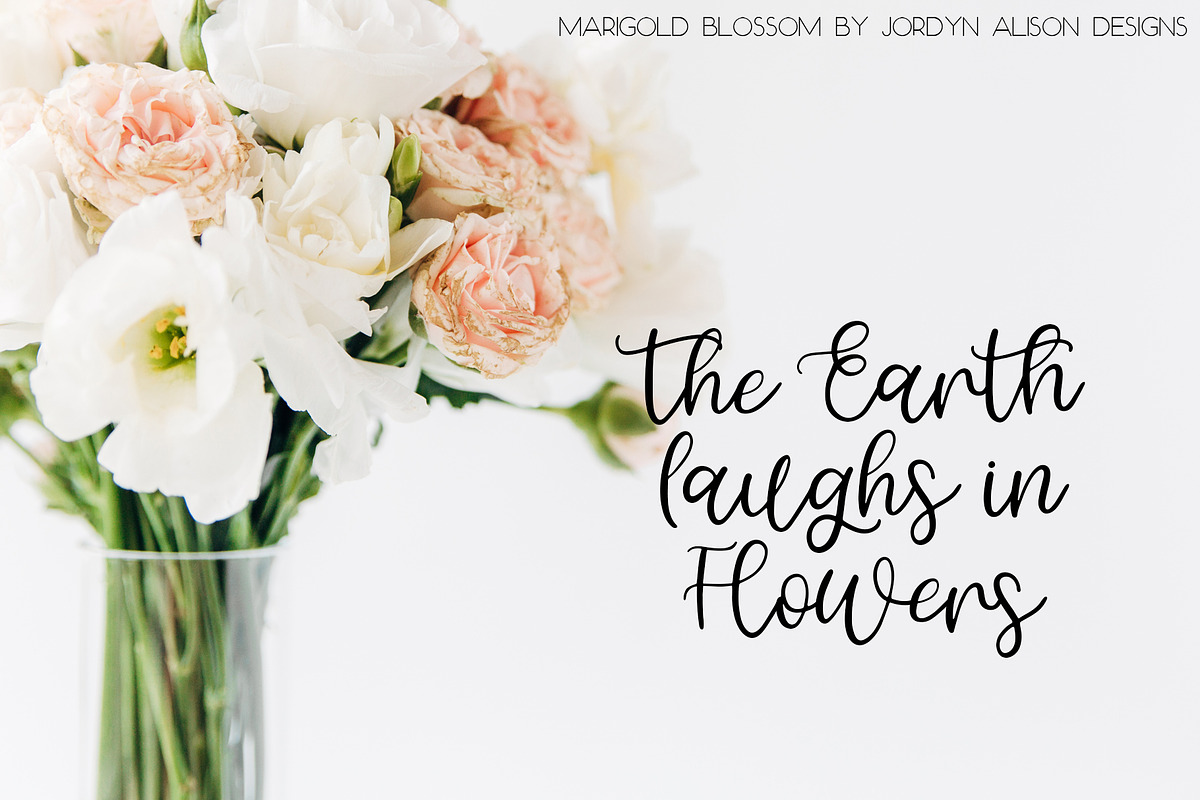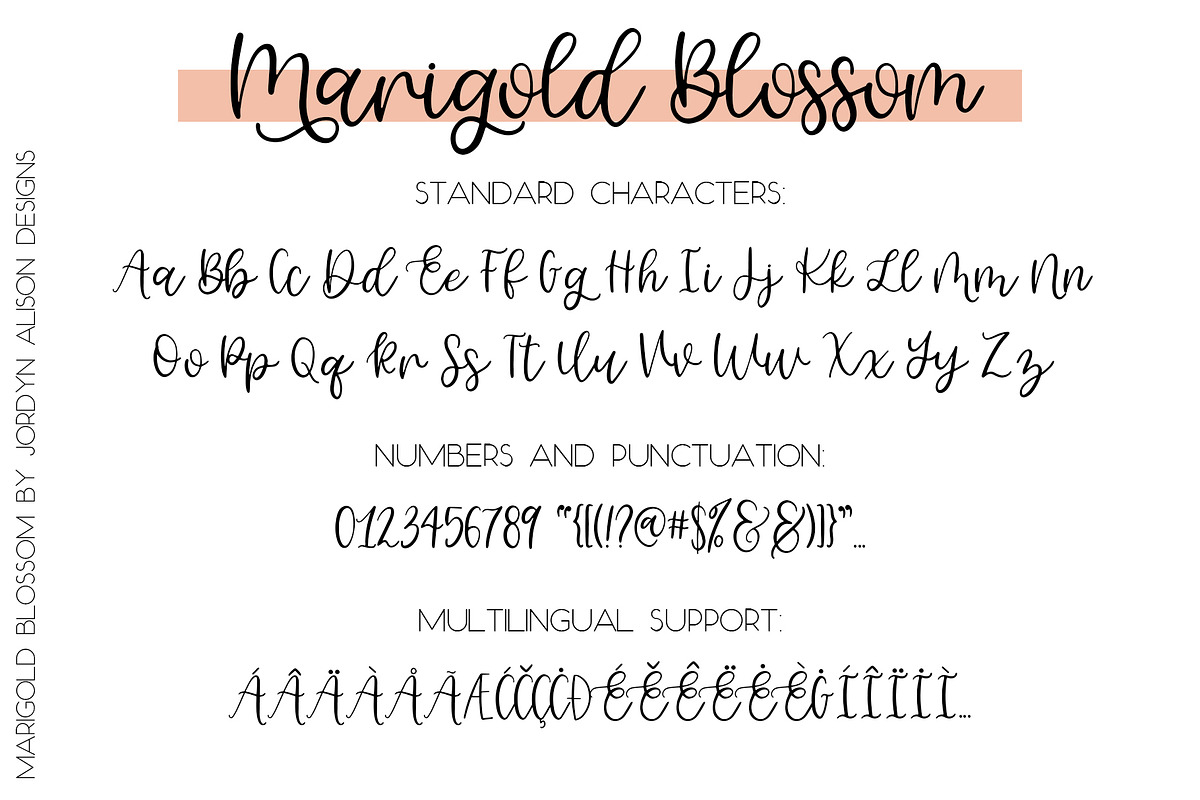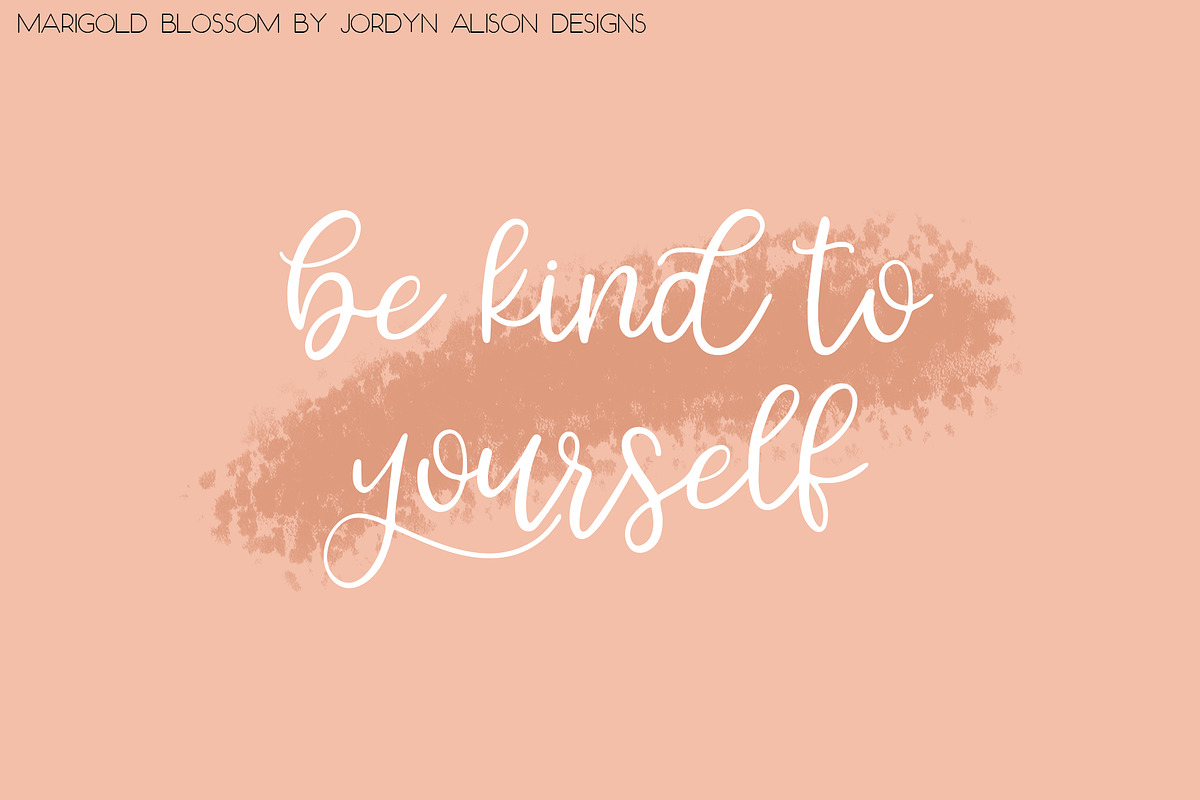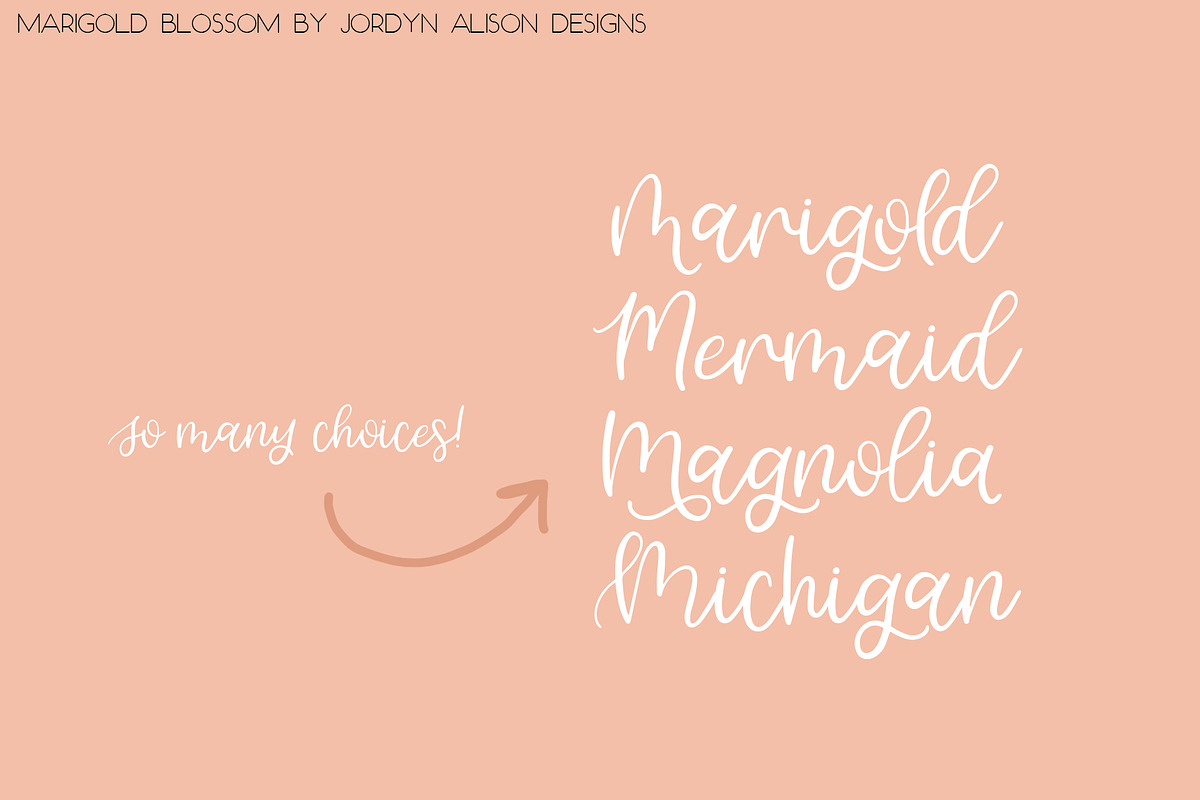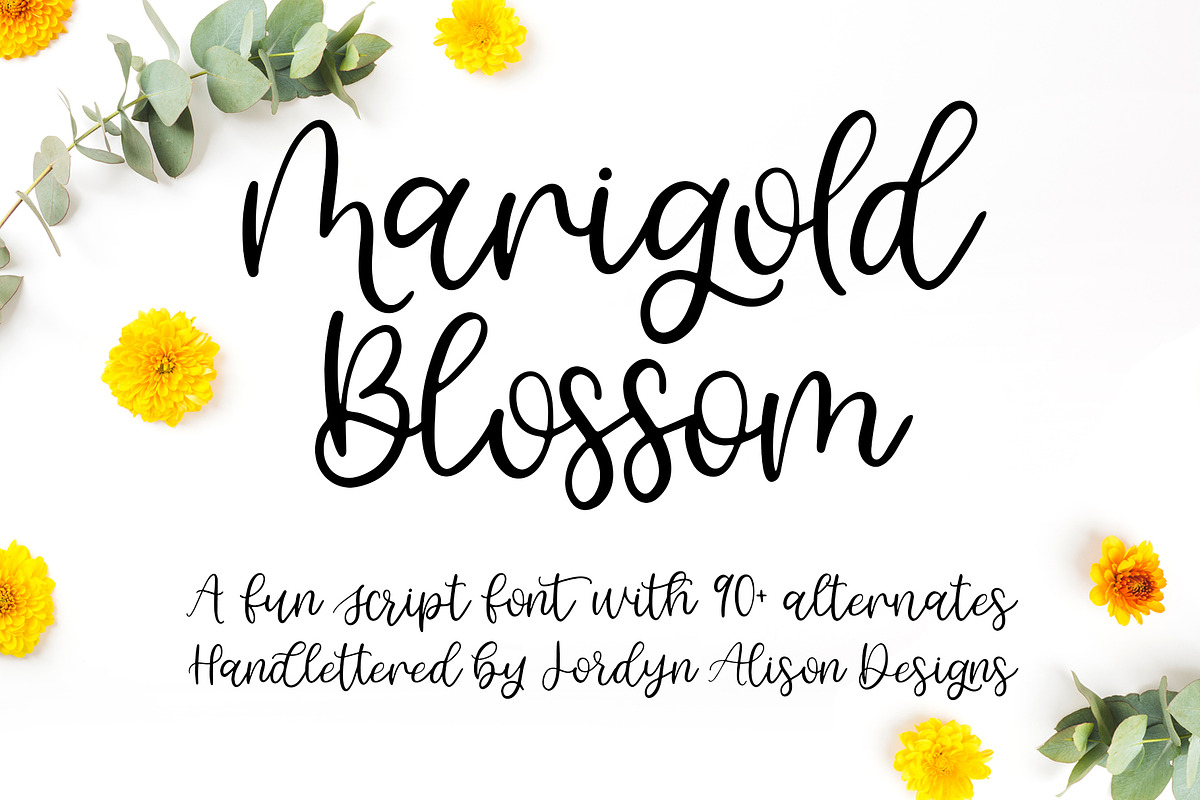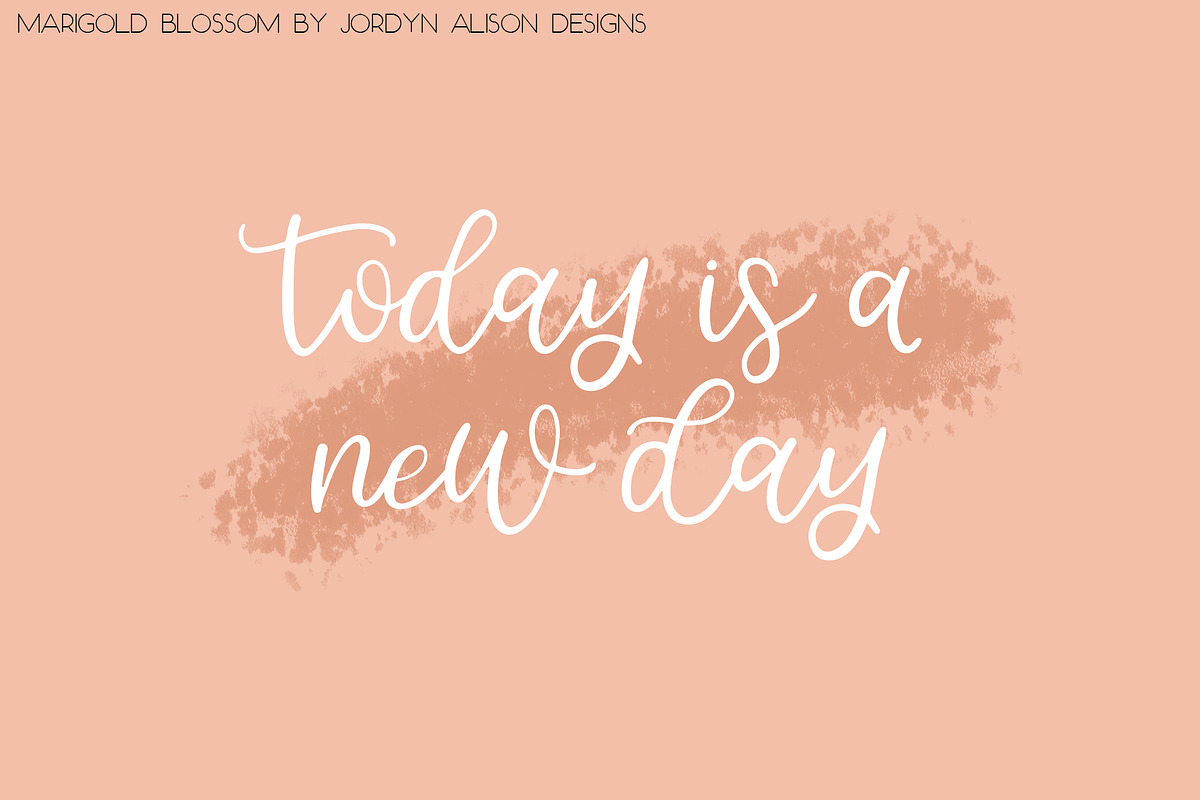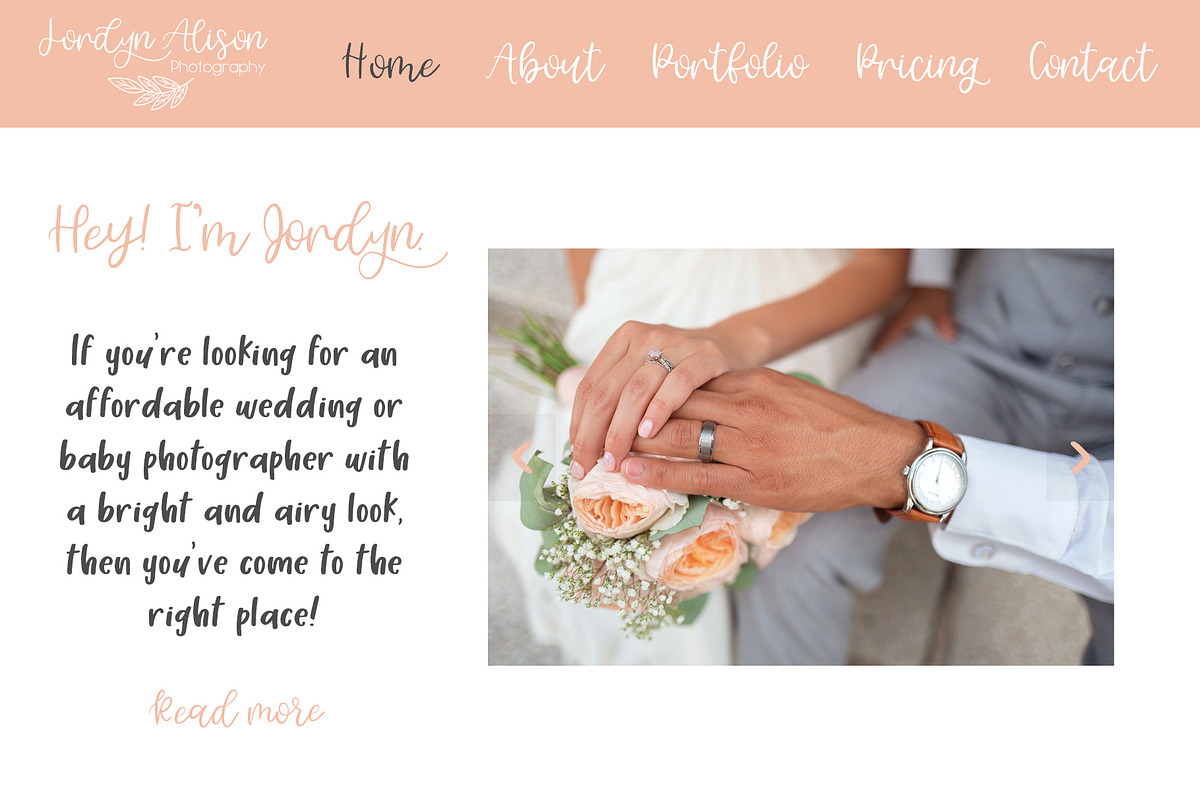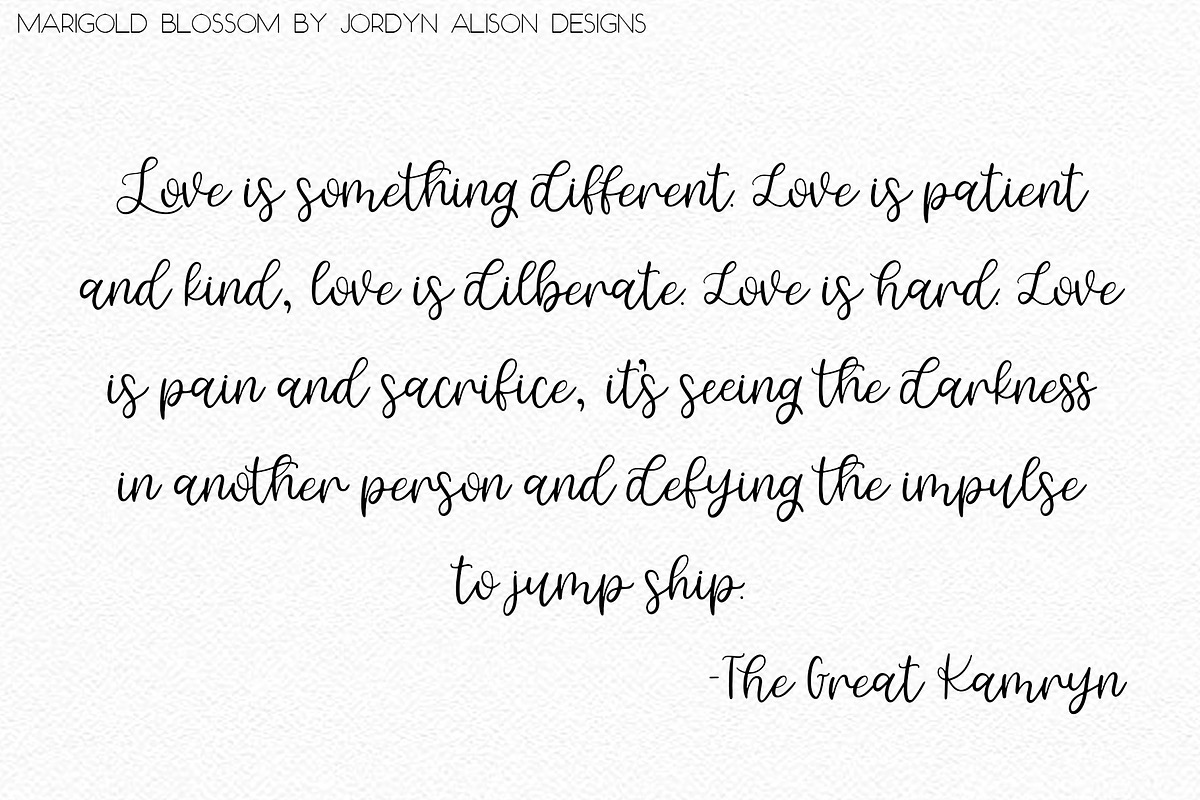
Marigold Blossom Script Font
Marigold Blossom is a realistic handlettered script font. Marigold Blossom comes with over 90 alternate characters and ligatures. Marigold Blossom has a couple uppercase and lowercase ligatures, as well as many uppercase letters that seamlessly connect to its lowercase script. Marigold Blossom is perfect for branding, logos, social media posts, and more.
Marigold Blossom Font Features:
Upper and lowercase letters, plus numbers and punctuation
62 Alternate Characters (including: 6 initial forms and 4 end forms)
Multilingual support for 72 languages including: Czech, Danish, French, German, Irish, Italian, Latin, Spanish, etc. Use the font preview below to check for certain characters.
- Marigold Blossom comes with over 90 alternate characters and ligatures.
- Upper and lowercase letters, plus numbers and punctuation
- 28 Ligatures
- 62 Alternate Characters (including: 6 initial forms and 4 end forms)